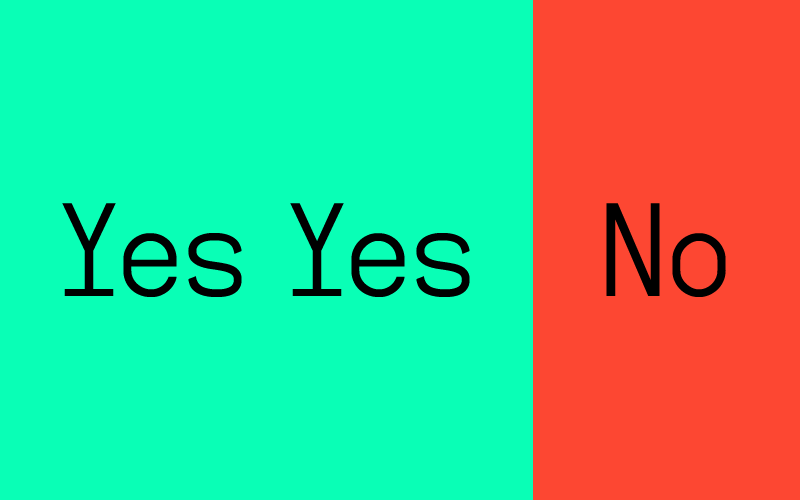
Font name: | Yes Yes No |
Author: | Steppot |
Note by Steppot | |
Typeface especially developed for YesYesNo.me — A web based New Years resolution. |